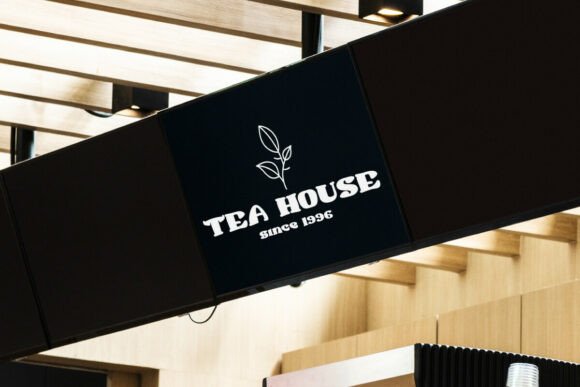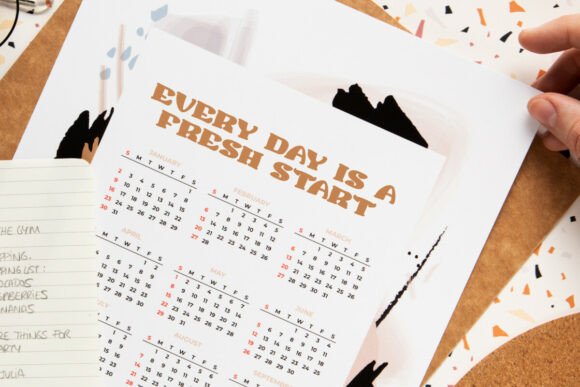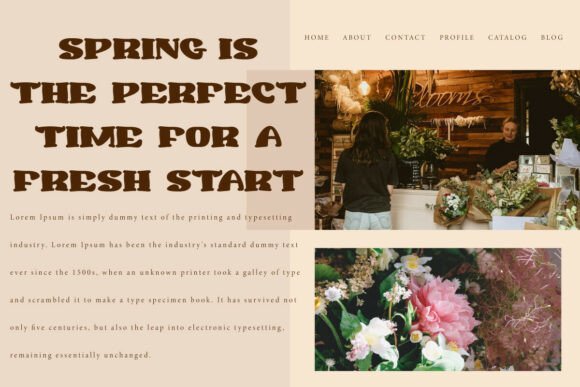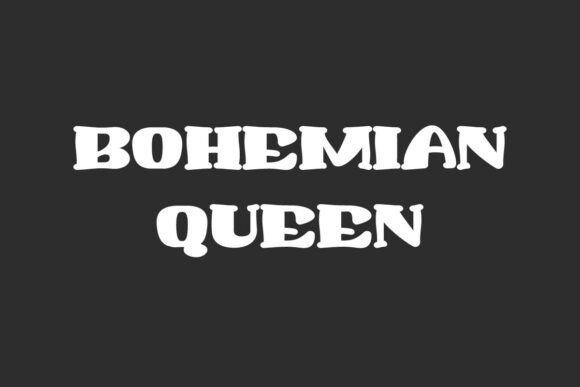
Bohemian Queen is a bold, groovy display font with a vintage flair and free-spirited personality.
Inspired by the psychedelic era of the 60s and 70s, this funky typeface blends thick, whimsical letterforms with a playful boho vibe It’s perfect for retro-inspired design projects that need a strong, artistic voice β€” whether you’re crafting posters, music album covers, T-shirts, festival flyers, or Instagram quotes.